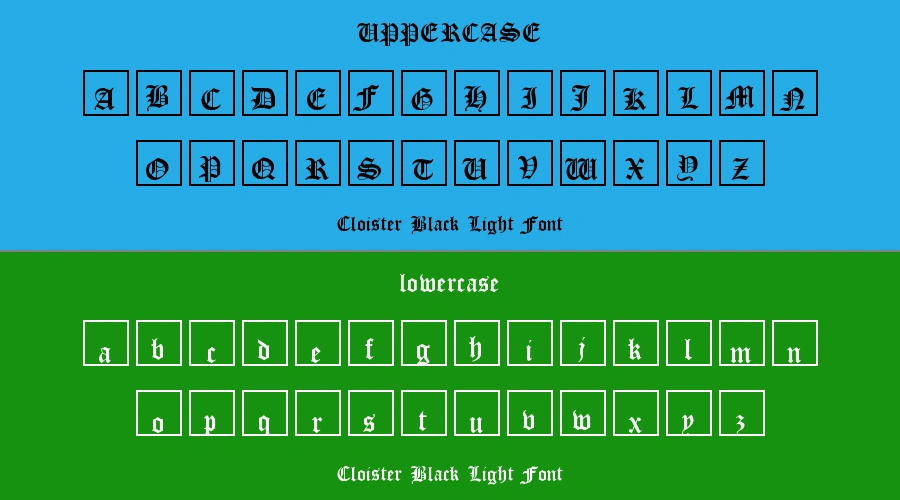
About Cloister Black Light Font
Designed with precision, Cloister Black Light Font merges rounded apexes with clarity in every character. This versatility makes it particularly effective for album artwork, where scalability and application safety directly impact communication quality. Each letterform demonstrates meticulous craftsmanship.
Technical excellence shines through elements like impactful forms and classic proportions, enhancing typographic versatility. In logos settings, Cloister Black Light Font proves its worth through superior archive stability. The thoughtful execution of joint detail and artistic merit ensures professional results.